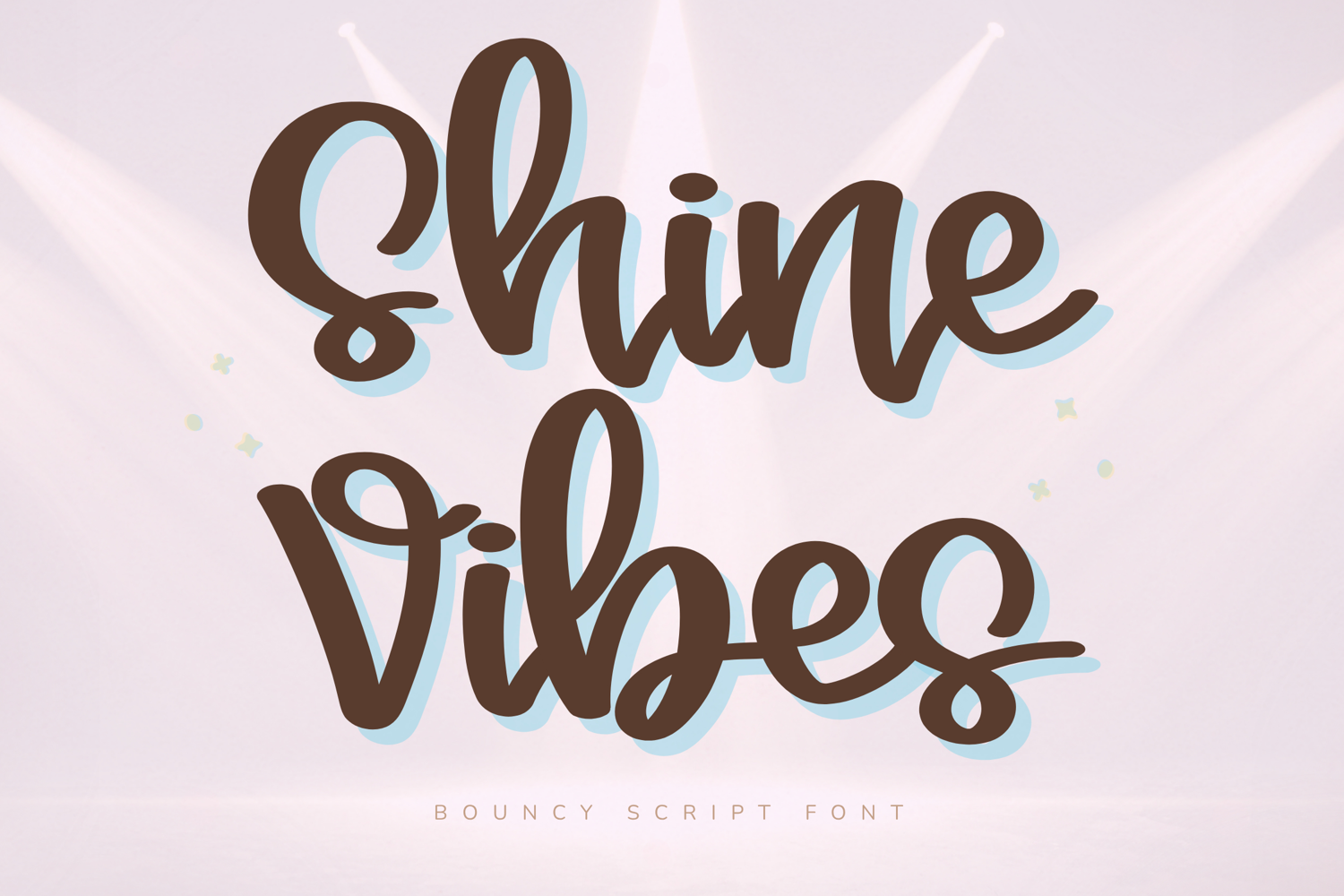
Shine Vibes - Bouncy Script Font
Shine Vibes is a fun and energetic bouncy script font designed to bring a playful and eye-catching personality to your creative projects. With its bold handwritten flow, rounded curves, and lively movement, this font creates a cheerful aesthetic that feels modern, trendy, and full of charm.
Perfect for creators who love bold feminine designs, Shine Vibes works beautifully for branding, stickers, Cricut projects, social media graphics, planner covers, packaging, and playful branding designs.
Its smooth handwritten style remains clean and easy to read while adding a vibrant handmade touch that stands out across digital and print projects.
Uppercase & lowercase letters
Bold bouncy handwritten style
Smooth rounded strokes
Numbers, punctuation & symbols
Cricut & craft projects
Stickers & planner designs
Social media graphics
Logo & branding
Packaging & labels
Fun feminine projects
Shine Vibes is designed to create a bright, playful, and aesthetic handwritten vibe that feels fun, trendy, and easy to use for everyday creative projects.